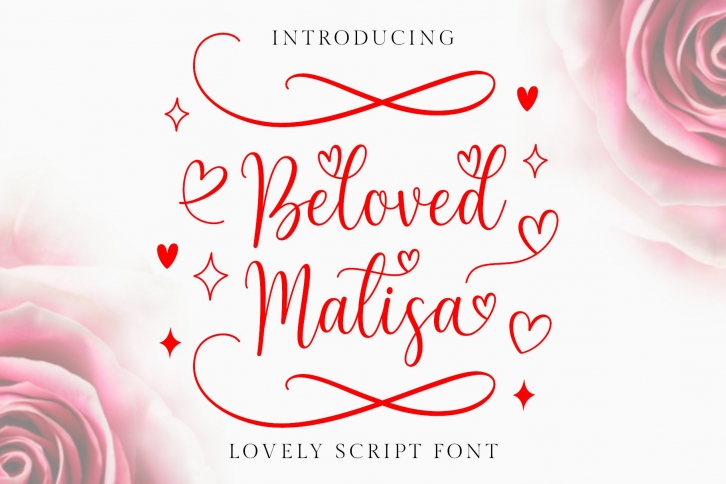
Beloved Matisa is a beautiful font that was designed by AV TYPE. It's a great choice for designers and creatives who need such a font. It was released on July 23, 2021 and the file size is 15.26 MB. Beloved Matisa may give a more youthful, expressive and casual look to your project. It is a very beautiful, refined, elegant, and high-quality font.